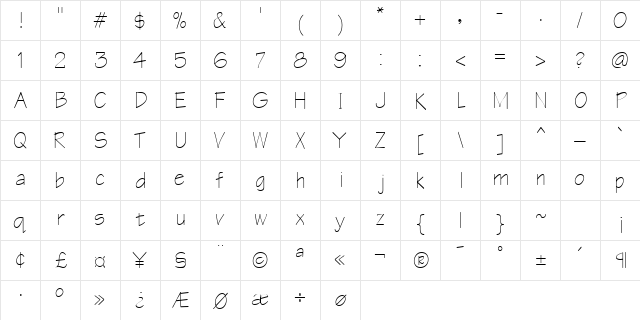
Notetaker Regular
Design Context for Notetaker Typeface
Notetaker is a composed and adaptable typeface that performs quietly and consistently across a wide range of design contexts.